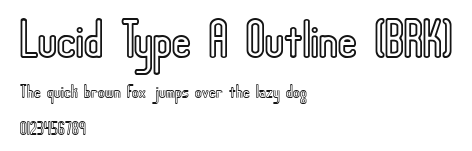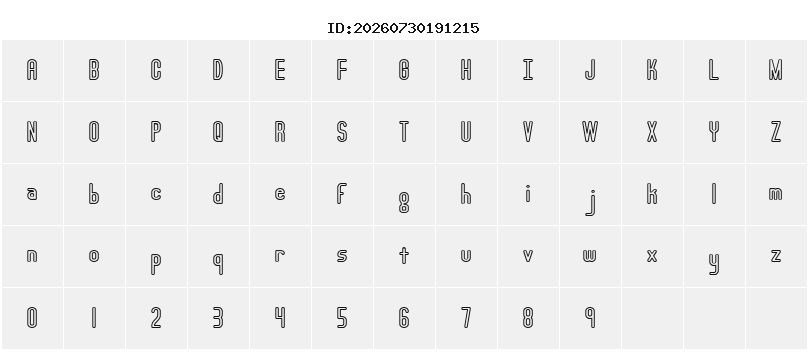
Lucid Type A Outline (BRK) Preview
• Font Name: Lucid Type A Outline (BRK)
• Full Font Name: Lucid Type A Outline (BRK)
About Lucid Type A Outline (BRK).ttf
Lucid Type A Outline (BRK).ttf is a modern, elegant sans-serif font designed for ultimate readability and visual harmony. Perfect for branding, headlines, web design, and print materials.